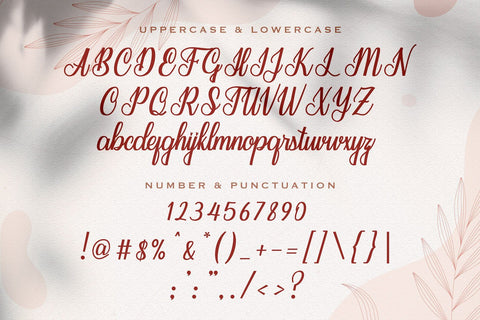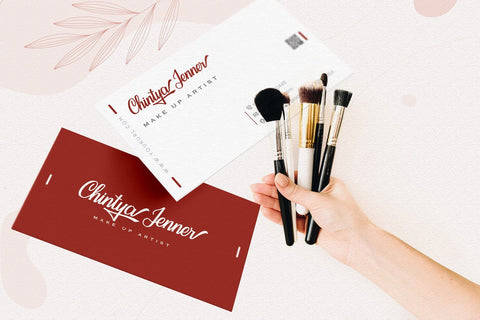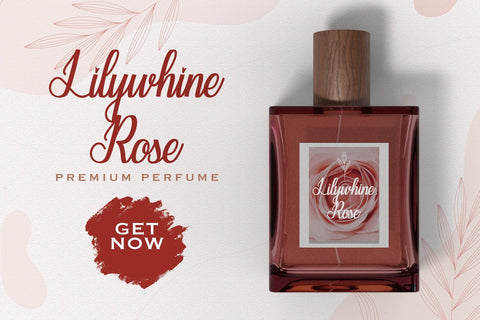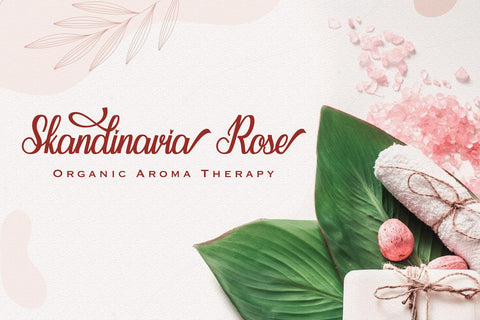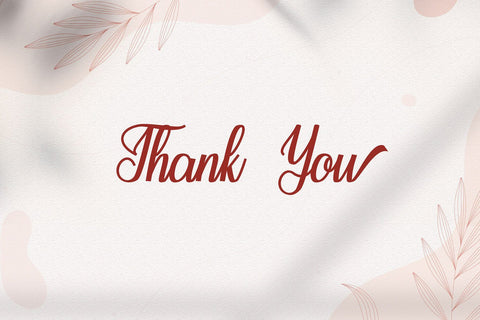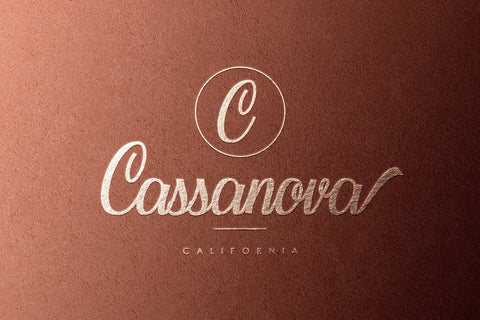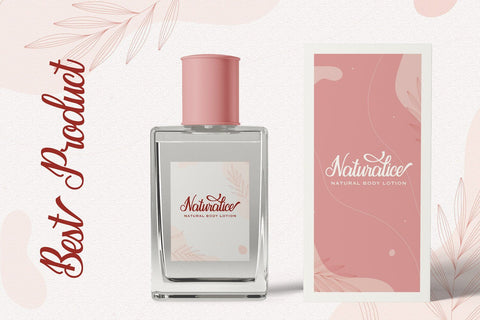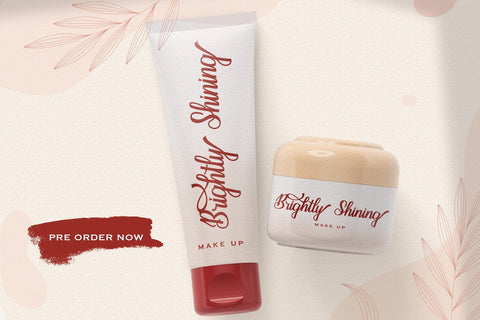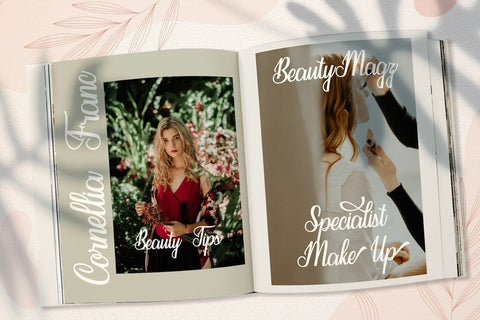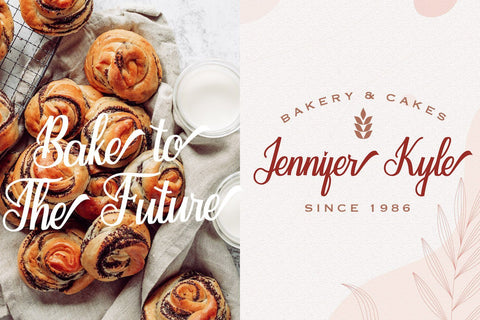
Seindah Cinttya - Casual Script Font
Introducing Seindah Cinttya - Casual Script Font
Seindah Cinttya results out of a stunning pairing of a brush pen that makes it look incredibly endearing and authentic. Use this gorgeous and unique script font to bring any DIY project to life!